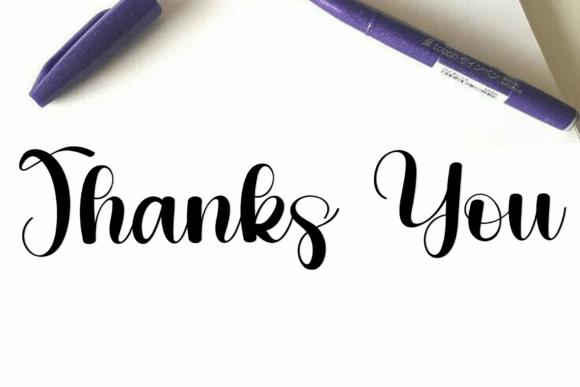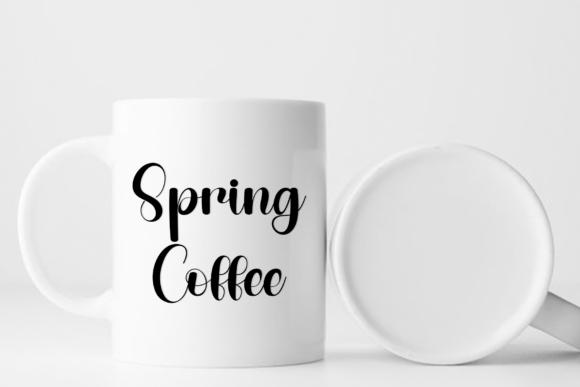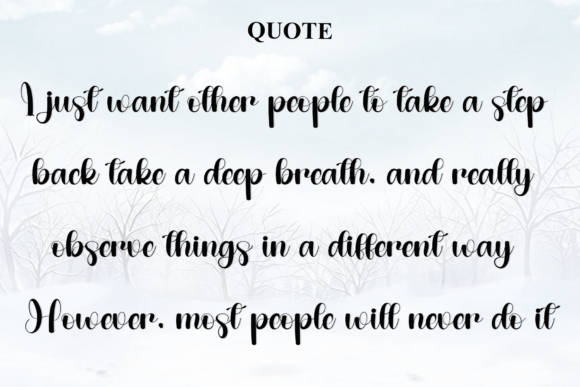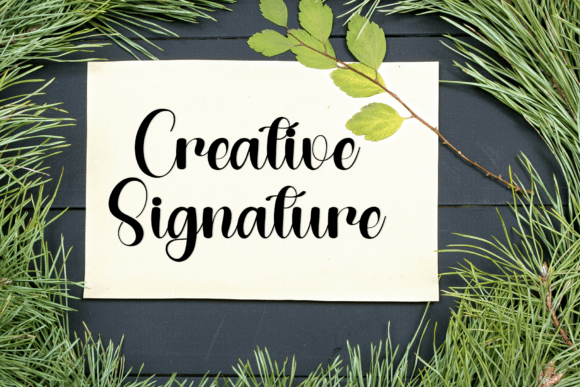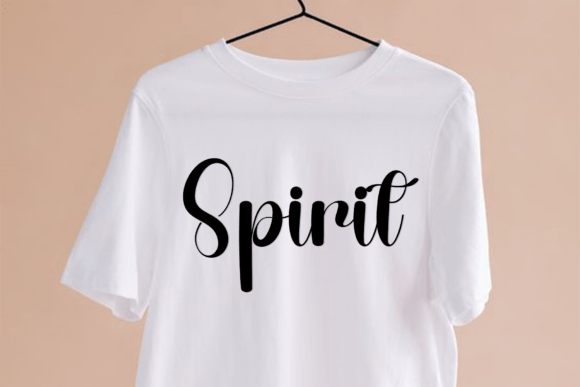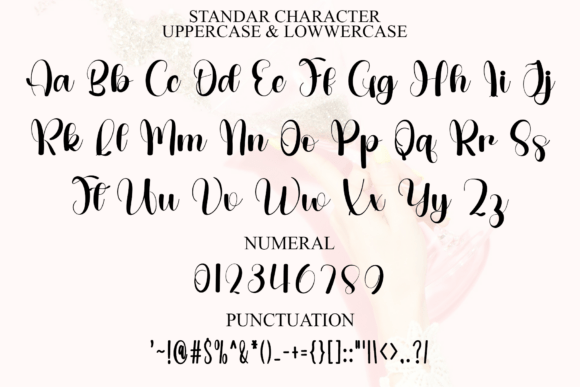
Unleash the Magic of the Holiday Season with Blaze Spirit Font
As the snowflakes start falling and the fireplace crackles to life, the holiday season is in full swing. It’s the time of year when creativity knows no bounds, and our imagination runs wild with festive ideas and decorations. For designers, it’s the perfect opportunity to get crafty and add a touch of whimsy to their projects.
Enter Blaze Spirit Font, a delightful typeface that embodies the spirit of the holiday season. With its ornate decorations and playful flair, this font is the perfect addition to your festive designs. Whether you’re creating greeting cards, gift tags, or holiday-themed projects, Blaze Spirit Font adds a cheerful and nostalgic ambiance to your words.
What sets Blaze Spirit Font apart is its PUA encoding, making it easy to access the amazing glyphs and ligatures that will elevate your typography to the next level. So why settle for ordinary when you can have extraordinary? Let the magic of Blaze Spirit Font bring your holiday designs to life!
Key Features of Blaze Spirit Font
- Font Family: Blaze Spirit Font offers a range of font styles, including bold, italic, and regular.
- Unique Characteristics: Blaze Spirit Font features a unique blend of modern and vintage elements, with a bold and energetic feel that is perfect for branding and marketing materials.
Blaze Spirit Font Review
I recently had the chance to work with the Blaze Spirit Font, and I must say it’s a unique addition to any design project. ✨ The font’s bold and fiery personality is sure to grab attention and add a touch of excitement to your visuals.
Here are some things that I think work well with Blaze Spirit Font:
- It’s great for creating bold headlines and titles, adding a sense of drama and energy to your design.
- The font’s bold weight is perfect for creating a striking visual impact, making it ideal for use in advertisements, posters, and other promotional materials.
- The font’s spirit is also reflected in its unique and custom characters, making it a great choice for designers who want to add a personal touch to their work.
- ⚠️ The font’s bold weight can be overwhelming if used excessively, so it’s essential to balance it with other design elements to avoid visual fatigue.
- ⚠️ The font’s unique characters may not be supported by all devices or browsers, which could lead to display issues or inconsistencies.
Overall, I think Blaze Spirit Font is a great addition to any designer’s toolkit. While it has its limitations, its unique personality and bold style make it a valuable asset for designers looking to add some excitement to their work.
The Blaze Spirit Font is ideal for creating bold and energetic designs. Common use cases include:
- Marketing materials, such as posters and flyers.
- Advertising and promotional materials.
For optimal results, use the Blaze Spirit Font in conjunction with bold and vibrant colors to create a striking visual effect.
Alternatives to Blaze Spirit Font
Great Vibes is a beautiful, elegant script font that works well for headings, titles, and quotes. It has a similar feel to Blaze Spirit Font but with a more refined and sophisticated look. Great Vibes is ideal for use in wedding invitations, luxury branding, and high-end publications.
Comparison to Blaze Spirit Font: Great Vibes is more polished and sophisticated, making it a better choice for formal or high-end designs.
Pacifico is a modern script font that is perfect for creating a relaxed, beachy vibe. It has a similar feel to Blaze Spirit Font but with a more laid-back and casual tone. Pacifico is ideal for use in beach-themed designs, travel branding, and outdoor advertising.